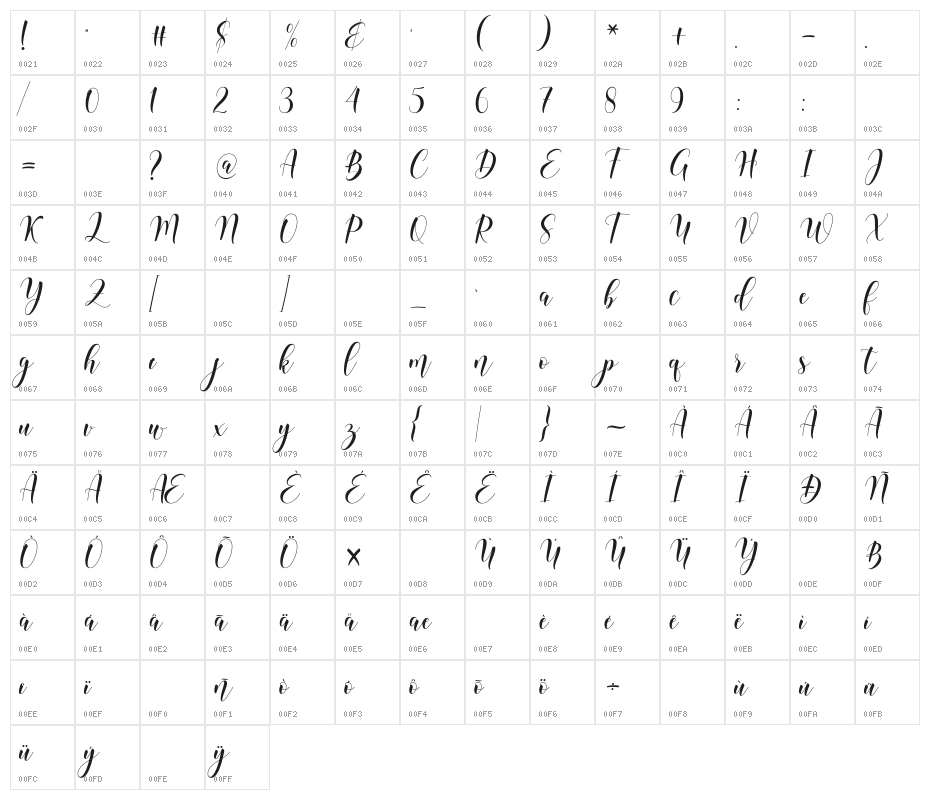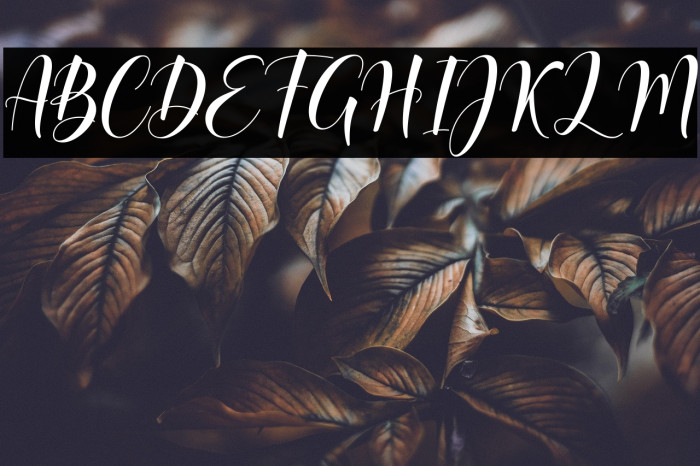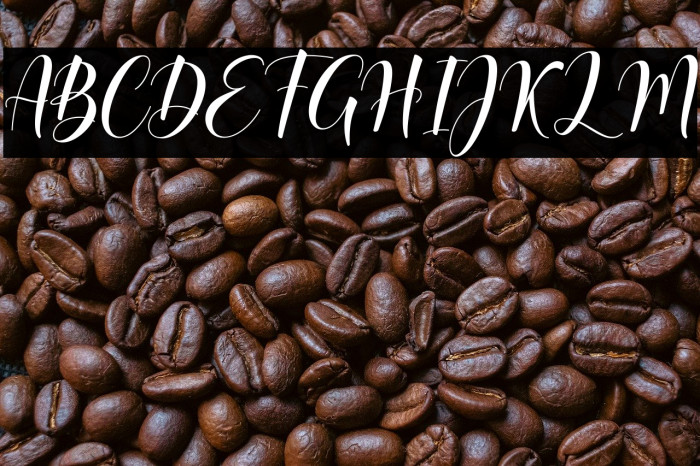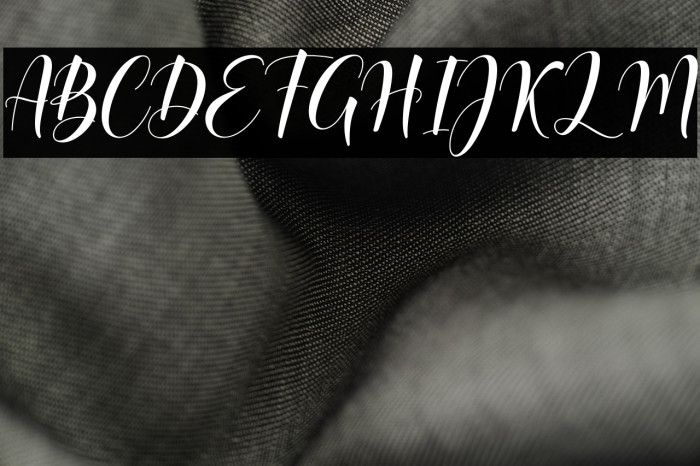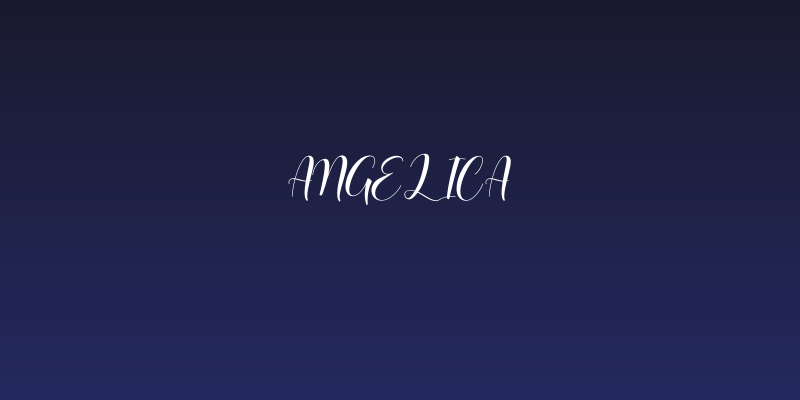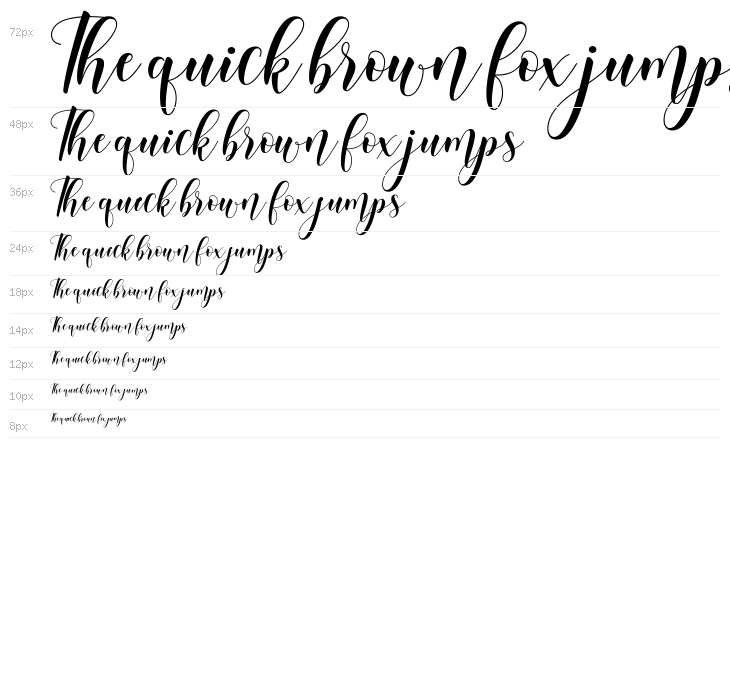
angelica Font
angelica Description
This font features an elegant and flowing script style, characterized by its smooth, cursive strokes and graceful loops. The uppercase letters are particularly ornate, with sweeping lines that convey a sense of sophistication and fluidity. The lowercase letters maintain a consistent style, offering a harmonious blend of curves and angles. Numbers and special characters are designed to complement the overall aesthetic, ensuring a cohesive look across all text. This font exudes a sense of elegance and is perfect for projects that require a touch of class and refinement.
| Proposed Projects | Ideal for wedding invitations, elegant branding, greeting cards, and upscale packaging. |